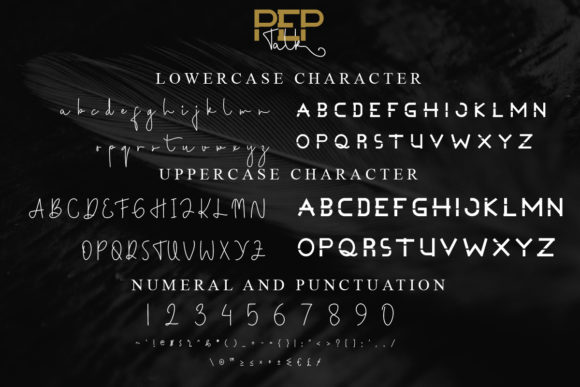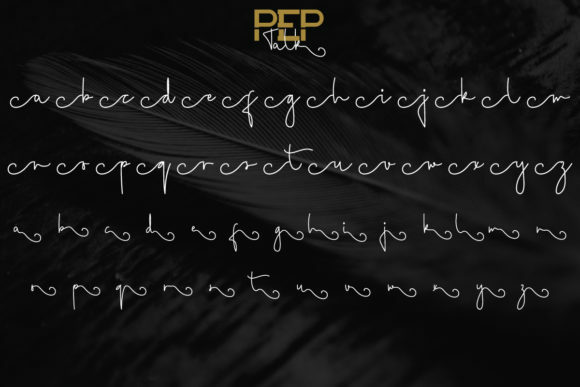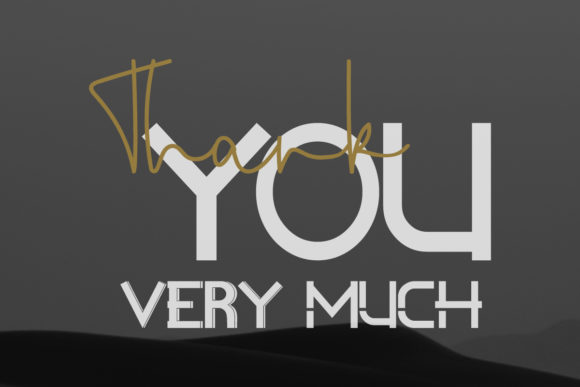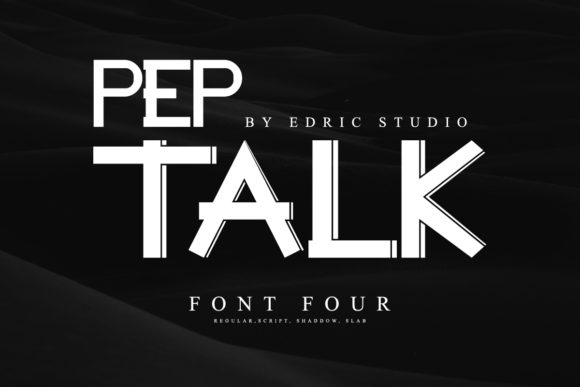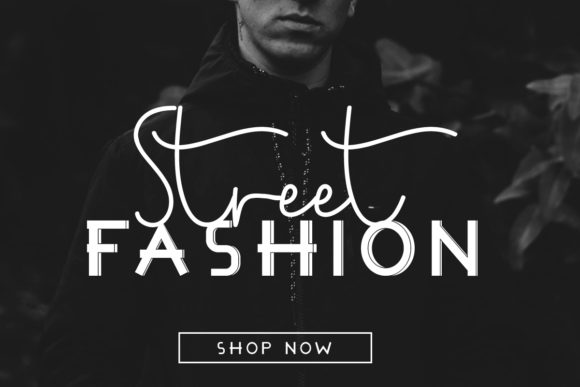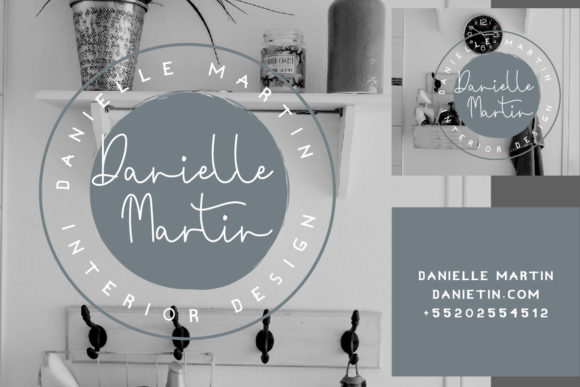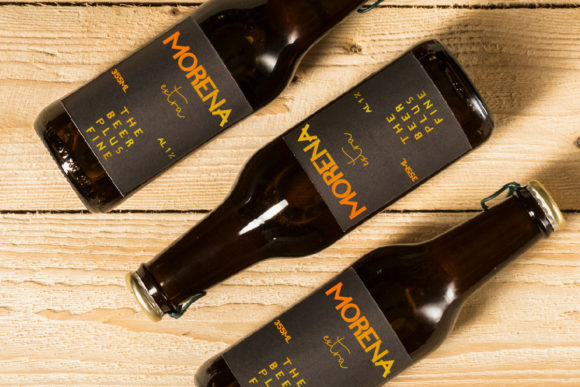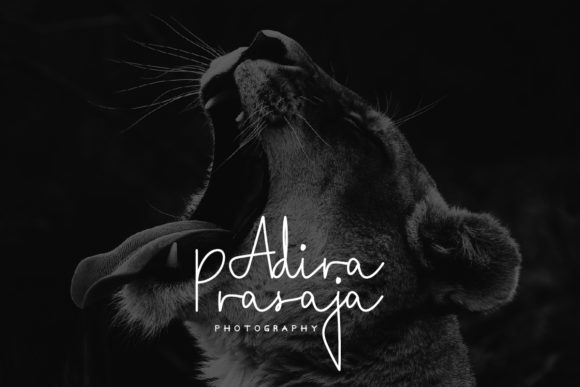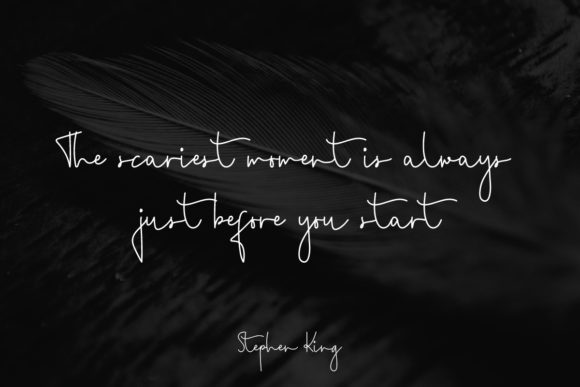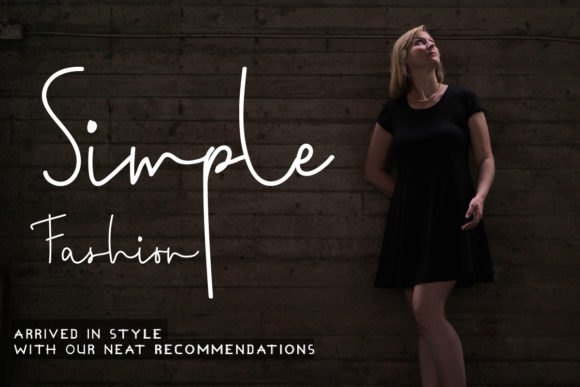
Pep Talk Font
PEP TALK FONT SPECIMEN
Pep Talk is an incredibly unique and interesting duo font (slab serif and script). Versatile, bold and friendly, this font has everything you may need in a font. Add it to your most creative ideas and notice how it makes them come alive!